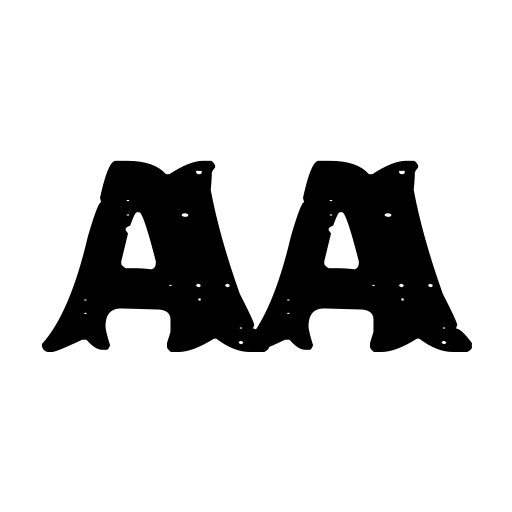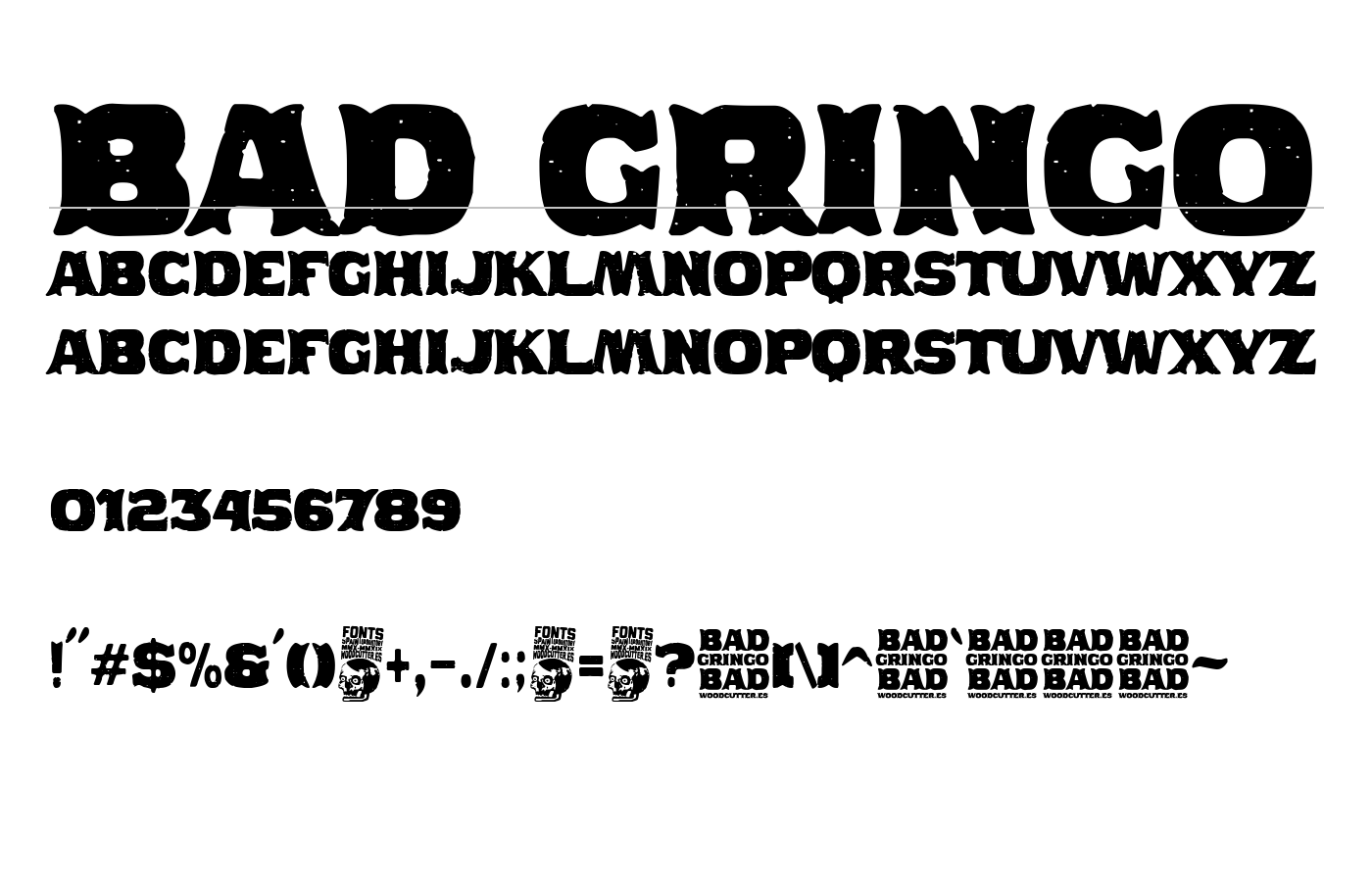
Bad Gringo is a bold, condensed slab serif font with a rough, distressed texture that gives it a rugged, vintage feel. Its chunky letterforms and unique irregularities make it perfect for creating eye-catching headlines, logos, and designs that communicate a rebellious, adventurous spirit. This font works well in branding, posters, and packaging where a strong, bold personality is needed.
Bad Gringo Font
About Bad Gringo Font